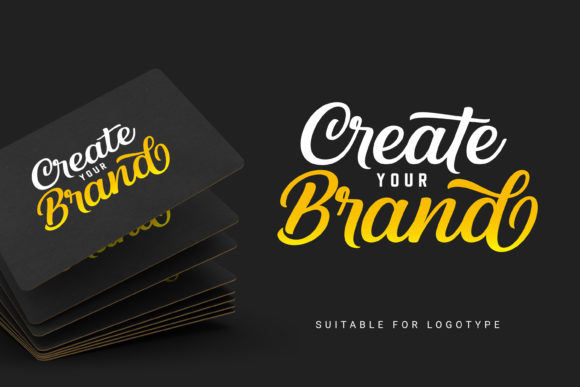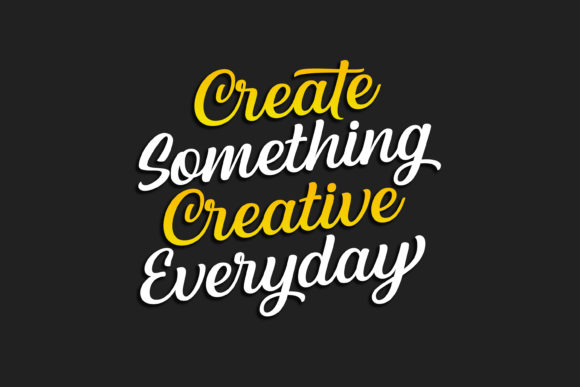
The Braders Script Font
db-ku.com - Script & Handwritten -- The Braders Script is a cursive and vintage styled handwritten font. It reads as strong, confident, and dynamic and can add tons of nostalgic character to your designs.